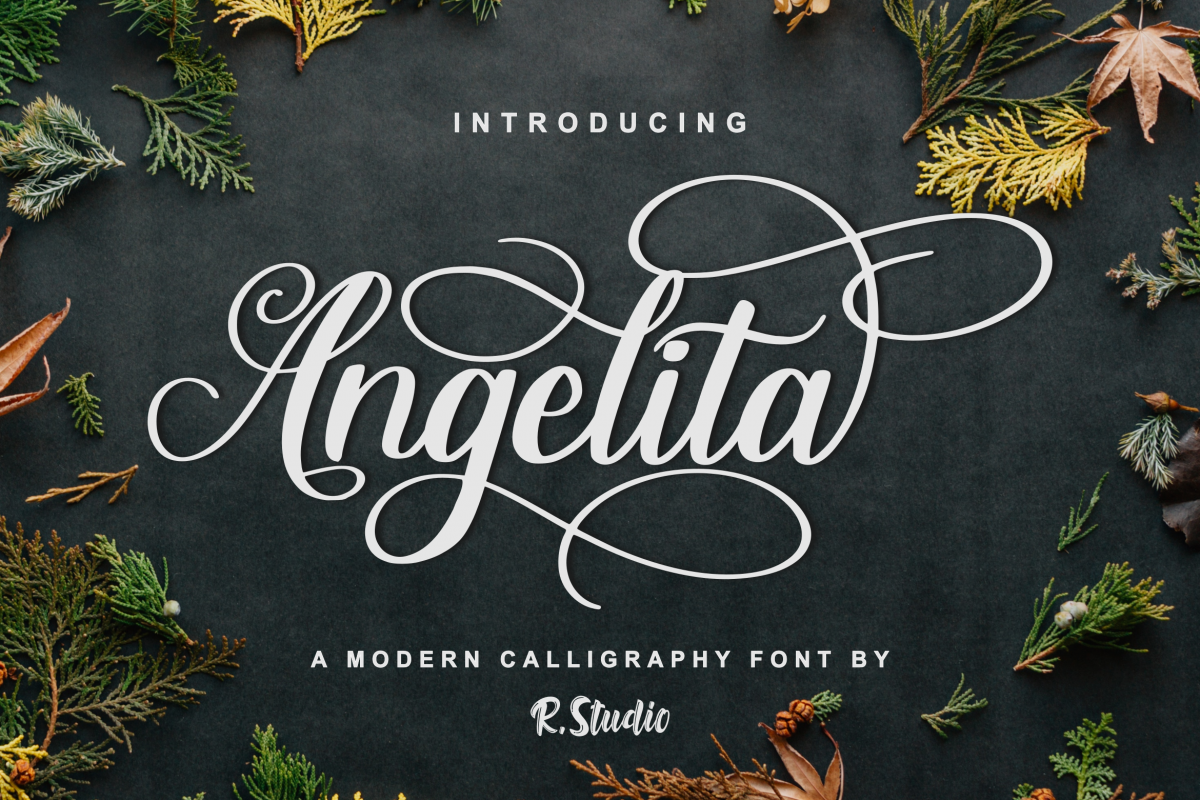
Angelita
Angelita-Regular
The Angelita is a modern calligraphy font. It’s classic look and dancing baseline makes it perfect for adding an elegant touch to your designs.It can be used for various purposes such as headings, signatures, logos, wedding invitations, t-shirts, letterheads, signage, labels, news, posters, badges, and much more!What's included :